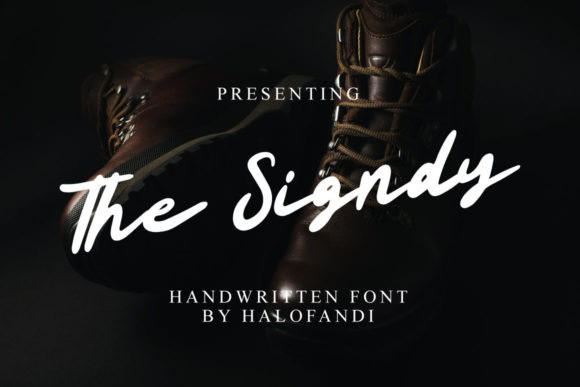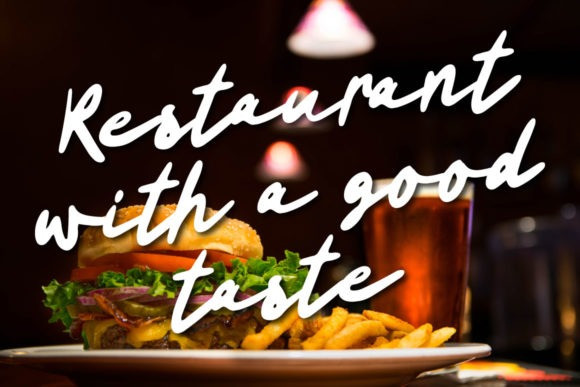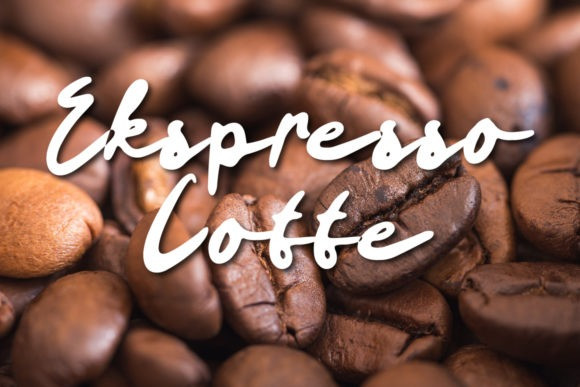
The Signdy Script Font
The Signdy is a flowing handwritten font, described by an elegant touch, perfect for your favorite projects. Fall in love with its incredibly distinct and timeless style and use it to create spectacular designs!